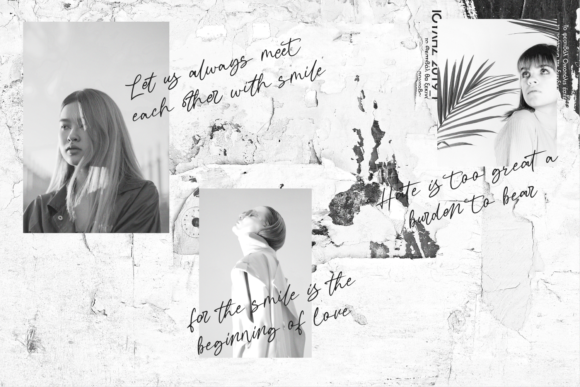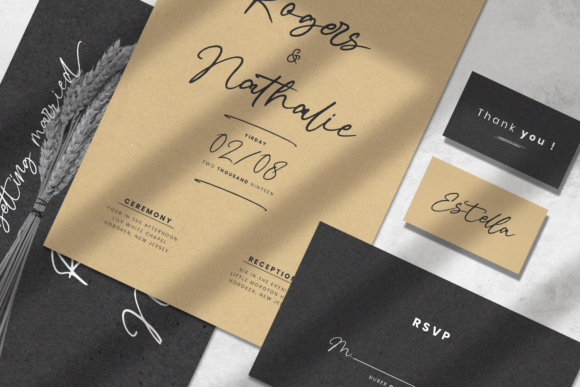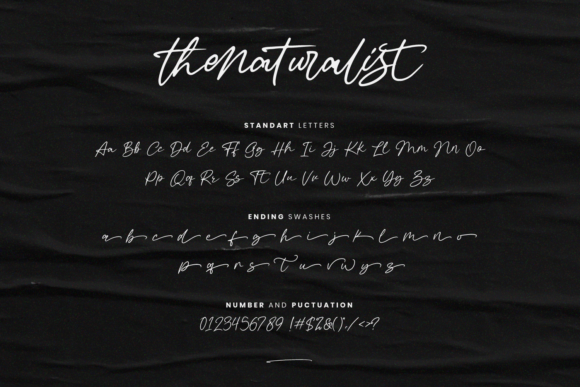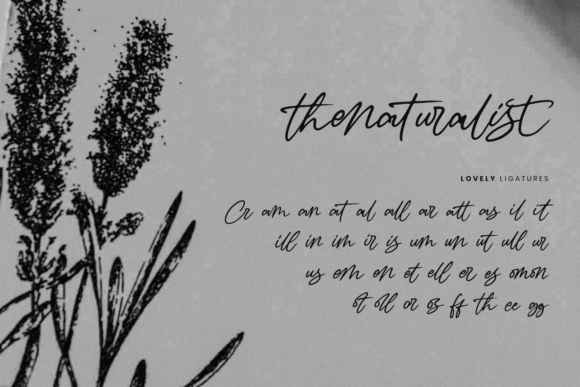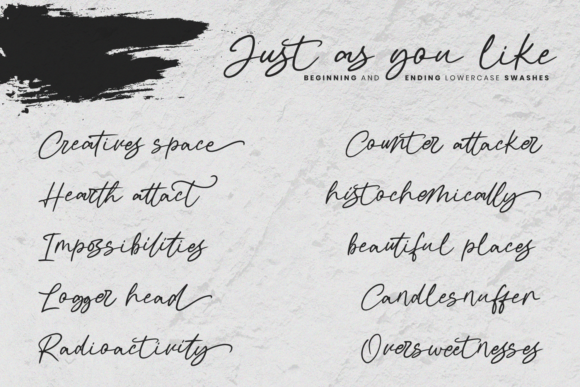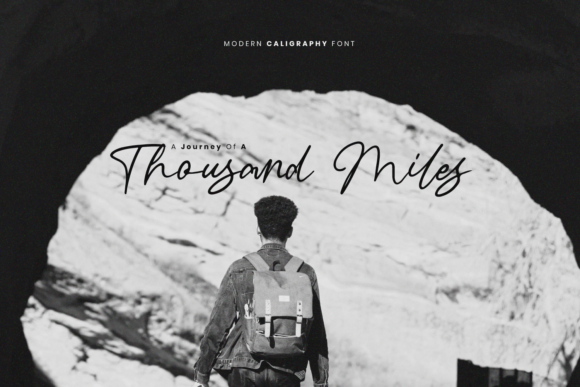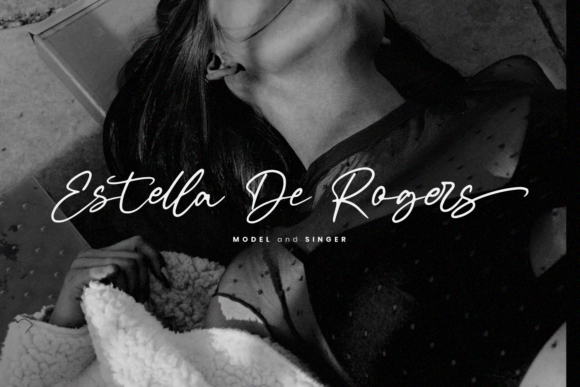
About The Naturalist Font
The Naturalist is an urban, relaxed and stylish handwritten font. It looks stunning on wedding invitations, thank you cards, quotes, greeting cards, logos, business cards and every other design which needs a handwritten touch.